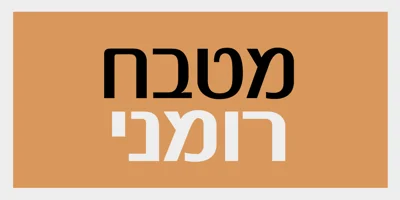
Rosenberg Naot Square MF Font
Rosenberg Naot Square MF Font is ideal for modern corporate branding, architectural documentation, technical presentations, contemporary signage systems, urban design projects, minimalist publications, and progressive digital interfaces.
What makes Rosenberg Naot Square MF Font exciting is its geometric precision and contemporary clarity, featuring structured letterforms that combine mathematical accuracy with human readability while delivering exceptional professional impact and modern sophistication.
The Rosenberg Naot Square MF Font family includes Thin, Light, Regular, Medium, Bold, and Black weights, plus condensed variants and technical symbols that enhance the font's systematic character and professional versatility.
Rosenberg Naot Square MF Font represents the pinnacle of systematic typography design for contemporary professional applications. This outstanding typeface combines geometric precision with practical functionality, creating a sophisticated visual system that speaks to modern businesses and organizations seeking clarity, efficiency, and professional excellence. The font's structured approach and clean architecture make it perfect for projects that require systematic thinking, technical accuracy, and contemporary aesthetic sensibilities.
Corporate design teams and architectural firms consistently choose Rosenberg Naot Square MF Font for projects that demand precision and professional credibility. The typeface's systematic construction and contemporary personality make it exceptionally effective for technical documentation, corporate communications, and professional presentations where clarity and reliability are paramount. Each character has been engineered with mathematical precision to ensure optimal performance across all professional applications and media formats.
The technical excellence of Rosenberg Naot Square MF Font extends beyond its geometric foundation to include comprehensive functionality for modern business needs. The font maintains exceptional legibility at all sizes while delivering a distinctive professional character that sets serious organizations apart from less sophisticated competitors. Its extensive character set includes technical symbols and international language support that make it suitable for global corporate communications and multinational business operations.
Technology companies, architectural practices, and professional service firms frequently incorporate Rosenberg Naot Square MF Font into their brand identity systems because of its ability to convey systematic thinking and professional competence. The typeface's contemporary aesthetic helps establish credibility in competitive business markets while appealing to clients who value precision, efficiency, and systematic approaches in their professional relationships and service expectations.